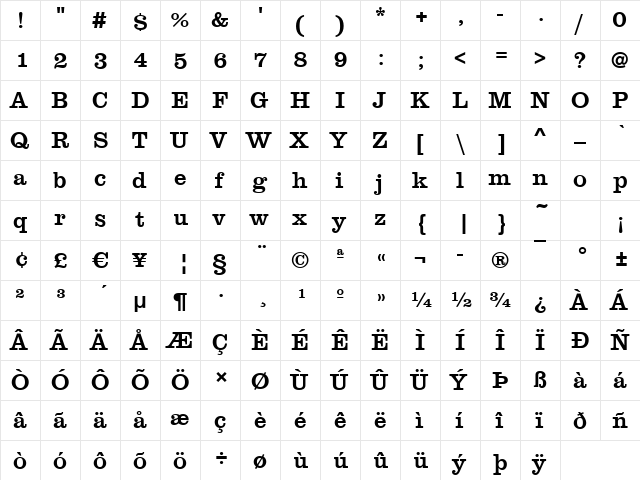
Clare-Medium Regular Font Preview
Clare-Medium Regular
Design Context for Clare-Medium Typeface
Clare-Medium offers clean, dependable letterforms without strong stylistic allegiance, making it a practical choice for designers who need flexibility.
Pro Tip: Pair Clare-Medium with a font of contrasting weight or personality to build a more expressive typographic hierarchy.